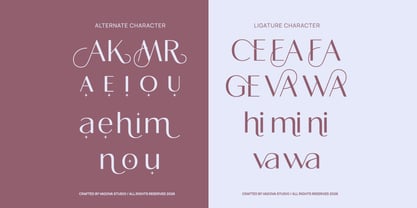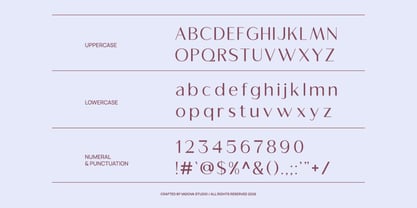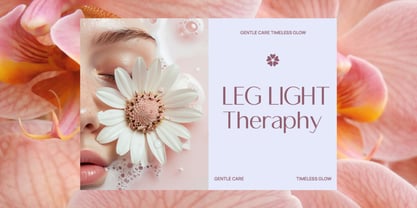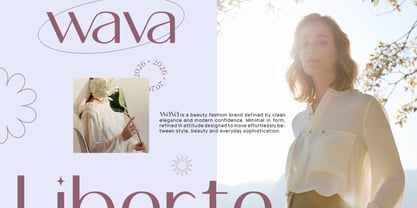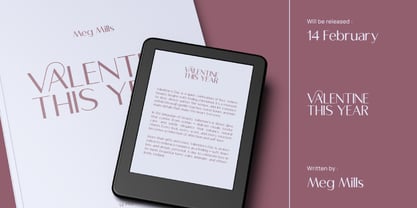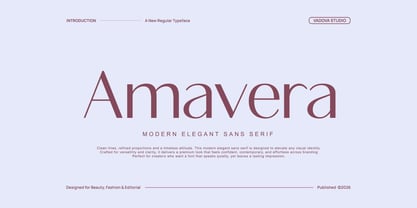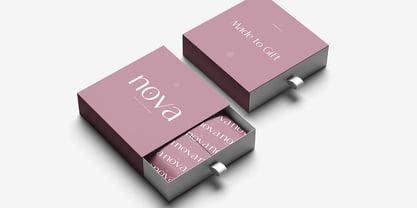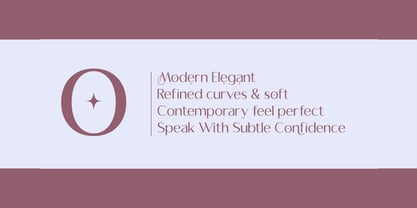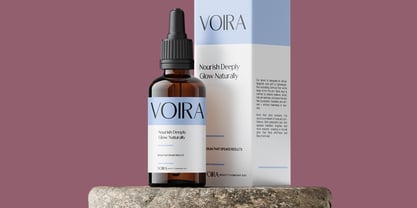
Amavera
by Vadova Std
Amavera is a modern elegant sans serif typeface defined by clean lines, refined proportions, and graceful letterforms. The design blends contemporary minimalism with subtle sophistication, making it suitable for high-end visual identities. It includes uppercase, lowercase, numerals, and punctuation with balanced spacing for display and branding use. Amavera is designed for modern brands that value clarity, elegance, and timeless appeal. It works beautifully for fashion labels, beauty packaging, editorial layouts, luxury branding systems, logo design, social media campaigns, and sophisticated marketing materials where a clean yet graceful typographic voice is essential.